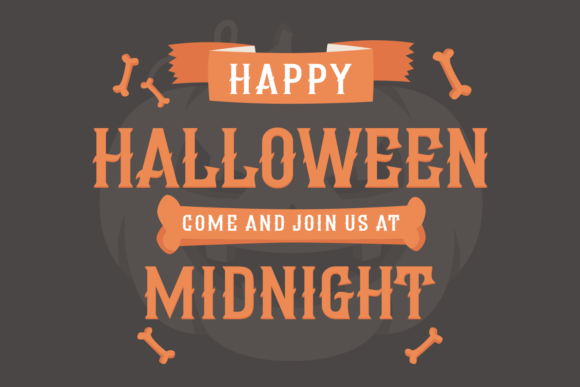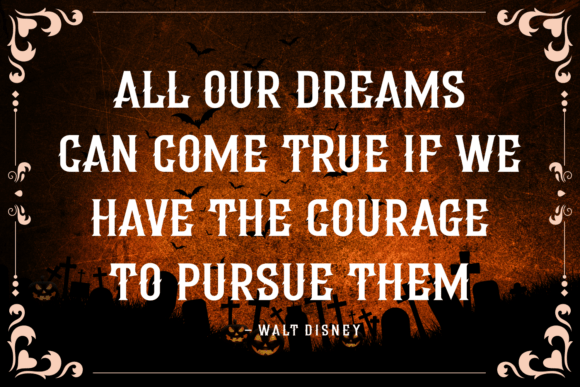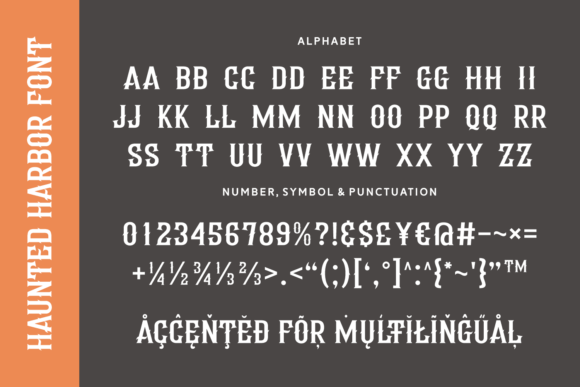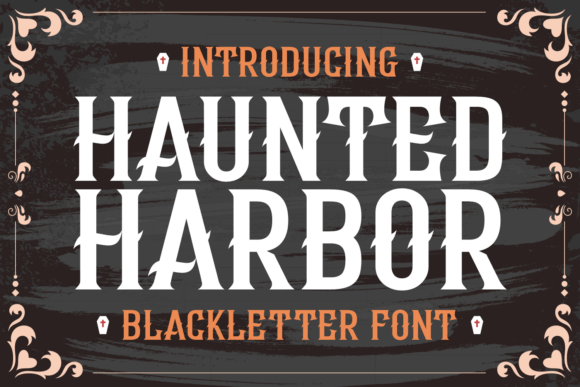
Unleash the Spooky Charm with Haunted Harbor Font
Are you looking for a font that can add a touch of eeriness and mystery to your designs? Look no further than the Haunted Harbor Font, a bold and chilling blackletter font that is perfect for capturing the essence of the spooky and unknown. With its sharp edges and gothic flair, this typeface is ideal for designers and crafters who want to create a haunting aesthetic in their work.
The Perfect Font for Dark-Themed Projects
Haunted Harbor Font is specifically designed to evoke a sense of eeriness and foreboding, making it perfect for Halloween posters, horror titles, gothic branding, vintage labels, and dark-themed projects. Whether you’re creating a spooky invitation, a horror movie title, or a gothic logo, this font is sure to deliver the perfect mix of old-world blackletter tradition and haunting modern design.
Key Features of Haunted Harbor Font
- Bold and Chilling Design: Haunted Harbor Font features a bold and chilling design that is sure to grab attention and evoke a sense of fear and mystery.
- Sharp Edges and Gothic Flair: The font’s sharp edges and gothic flair give it a unique and haunting aesthetic that is perfect for dark-themed projects.
- Perfect for Halloween and Horror Themes: Haunted Harbor Font is ideal for Halloween posters, horror titles, and other spooky-themed projects.
- Vintage and Gothic Feel: The font’s vintage and gothic feel makes it perfect for creating a sense of nostalgia and mystery in your designs.
Uses for Haunted Harbor Font
Haunted Harbor Font is a versatile typeface that can be used in a variety of ways, including:
- Halloween Posters and Invitations: Create spooky and eye-catching posters and invitations for Halloween parties and events.
- Horror Movie Titles and Posters: Add a touch of eeriness and foreboding to your horror movie titles and posters.
- Gothic Branding and Logos: Create a haunting and memorable brand identity with Haunted Harbor Font.
- Vintage Labels and Packaging: Add a touch of nostalgia and mystery to your vintage labels and packaging.
- Dark-Themed Projects: Use Haunted Harbor Font to create a sense of eeriness and foreboding in your dark-themed projects, such as horror stories, creepy comics, and spooky games.
Tips for Using Haunted Harbor Font
Here are some tips for using Haunted Harbor Font effectively in your designs:
- Use it Sparingly: Haunted Harbor Font is a bold and attention-grabbing font, so use it sparingly to avoid overwhelming your design.
- Pair it with Other Fonts: Pair Haunted Harbor Font with other fonts to create a unique and interesting contrast.
- Experiment with Colors: Experiment with different colors to find the perfect combination that complements the font’s haunting aesthetic.
- Pay Attention to Kerning: Pay attention to kerning to ensure that the font looks cohesive and visually appealing.
Haunted Harbor Font is a bold and chilling blackletter font that is perfect for designers and crafters who want to create a haunting aesthetic in their work. With its sharp edges and gothic flair, this typeface is ideal for Halloween posters, horror titles, gothic branding, vintage labels, and dark-themed projects. Whether you’re a professional designer or a crafty DIY enthusiast, Haunted Harbor Font is sure to deliver the perfect mix of old-world blackletter tradition and haunting modern design.